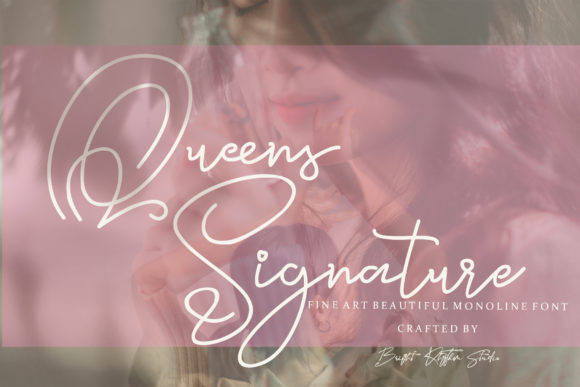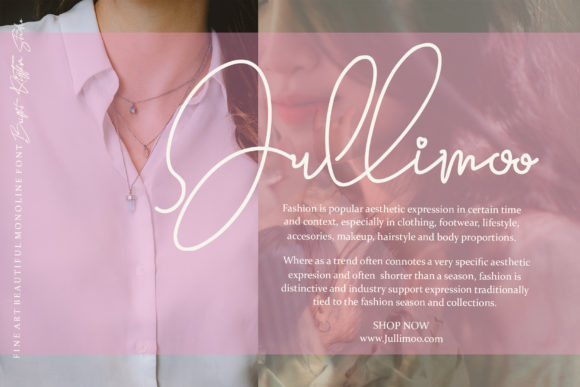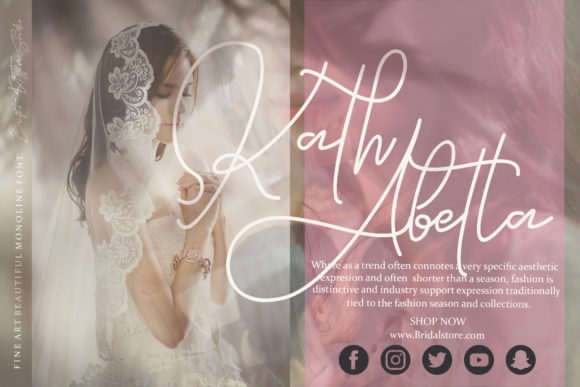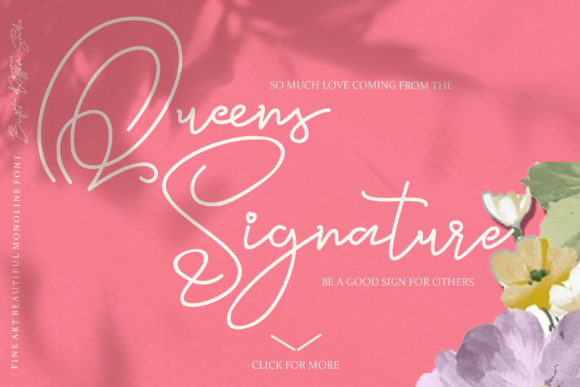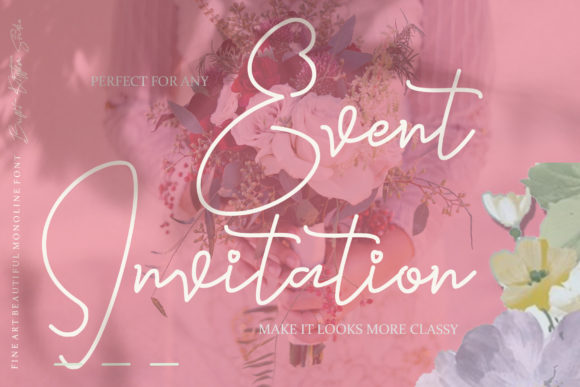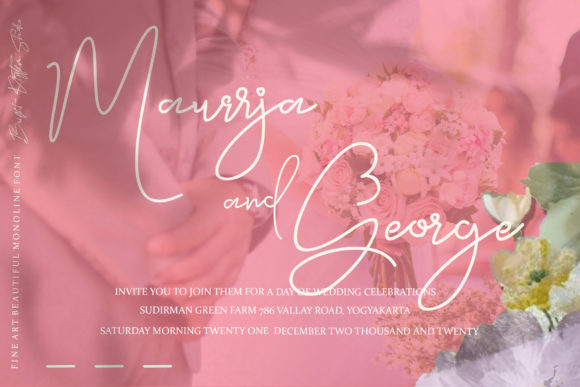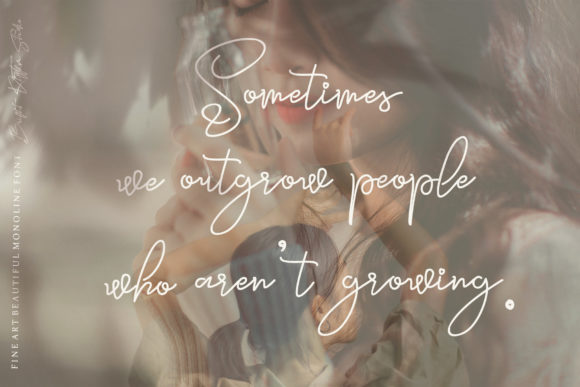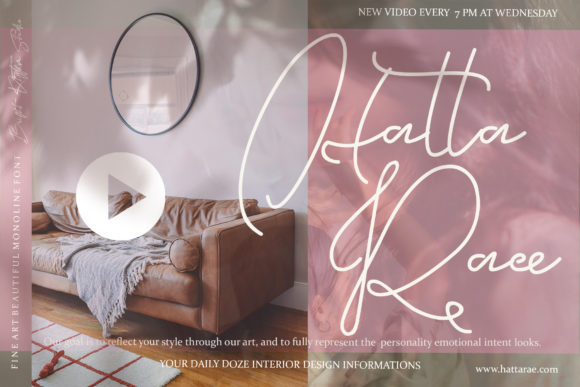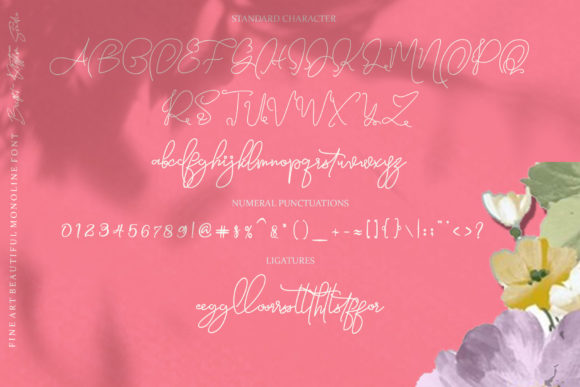
Queens Signature Font
About Queens Signature Font
Queens Signature sounds like a beautiful choice! With its sweet and elegant handwritten style, this font can add a touch of sophistication and charm to your designs. Its thin and dainty appearance creates a delicate and refined look that can make each of your creations stand out.
When it comes to logos, Queens Signature can help you create a unique and memorable brand identity. Its elegant handwritten style adds a personal and authentic touch, making your logo feel special and distinctive. Whether you’re designing a logo for a boutique, a beauty salon, or any other business, Queens Signature can lend a sense of elegance and sophistication.
Wedding invitations can benefit greatly from the use of Queens Signature. Its sweet and delicate nature adds a romantic and heartfelt touch to the text, setting the tone for a beautiful and memorable event. Whether you’re designing invitations for a classic wedding, a modern celebration, or an intimate gathering, Queens Signature can add an element of elegance and grace.
Headings in various design projects can also benefit from the use of Queens Signature. Its thin and dainty appearance adds a touch of refinement and visual interest, making your headings visually striking. Whether it’s for digital designs, printed materials, or any other medium, Queens Signature can make your headings look outstanding and captivating.
T-shirts can be transformed with the addition of Queens Signature. Its elegant and handwritten style can add a touch of sophistication and personality to your t-shirt designs. Whether you’re creating designs for fashion brands, special events, or personalized gifts, Queens Signature can elevate your t-shirt designs and make them stand out.
In addition to these examples, Queens Signature can be used for a wide range of purposes, such as letterhead, signage, labels, news, posters, badges, and more. Its sweet and elegant appearance lends itself well to various design applications, allowing you to create visually appealing and captivating designs.
In summary, Queens Signature is a sweet and elegant handwritten font that adds sophistication and charm to logos, wedding invitations, headings, t-shirts, letterhead, signage, labels, news, posters, badges, and more. Embrace its thin and dainty appearance to make each of your designs outstanding. Enjoy incorporating Queens Signature into your projects and let its sweet and elegant nature shine through!